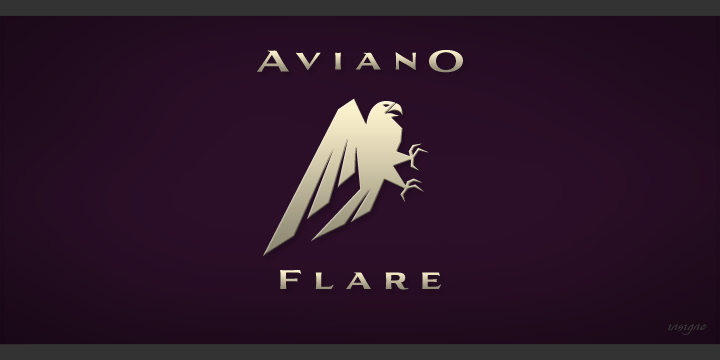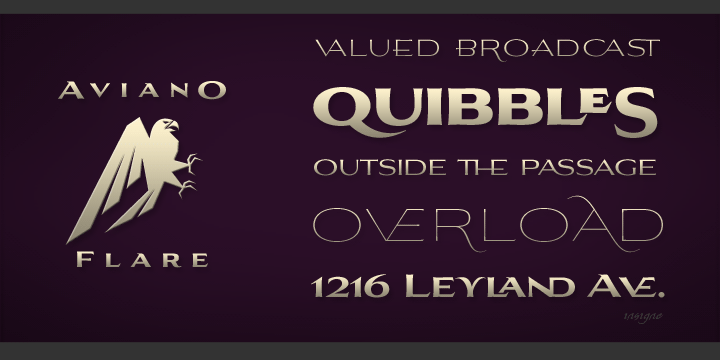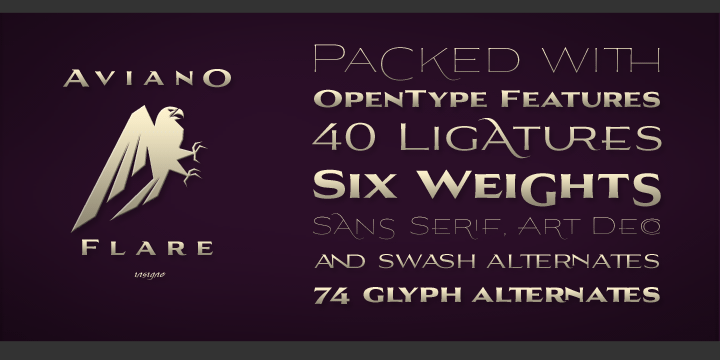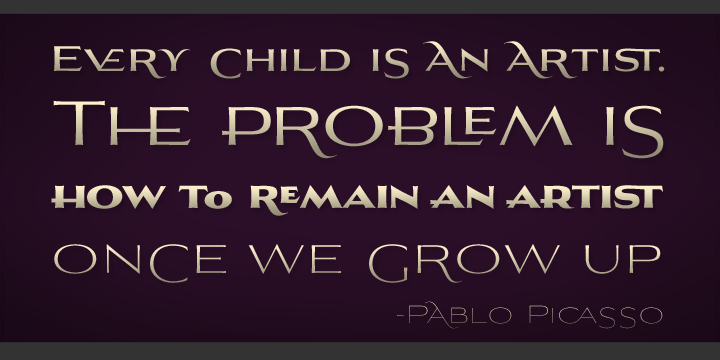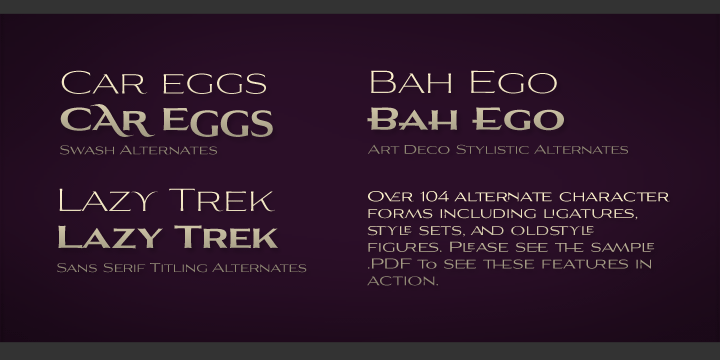
Aviano Flare
Aviano Flare is a futuristic sans serif with a crisp, flared construction that gives it a sharp, forward-looking presence. The letterforms feel clean and architectural, making it a strong choice when you want typography that reads as modern, stylized, and distinctly display-driven.
This family includes 6 styles—Thin, Light, Regular, Medium, Bold, and Black—giving you room to move from refined, airy settings to heavier, more assertive headlines. That range makes it useful for branding, posters, packaging, social graphics, and other display work where a sleek, contemporary voice matters.
Designed by Insigne, it suits projects that benefit from a polished futuristic tone without losing clarity. If you're building a visual identity that needs structure, energy, and a bit of edge, this family offers a versatile set of weights to shape the look.